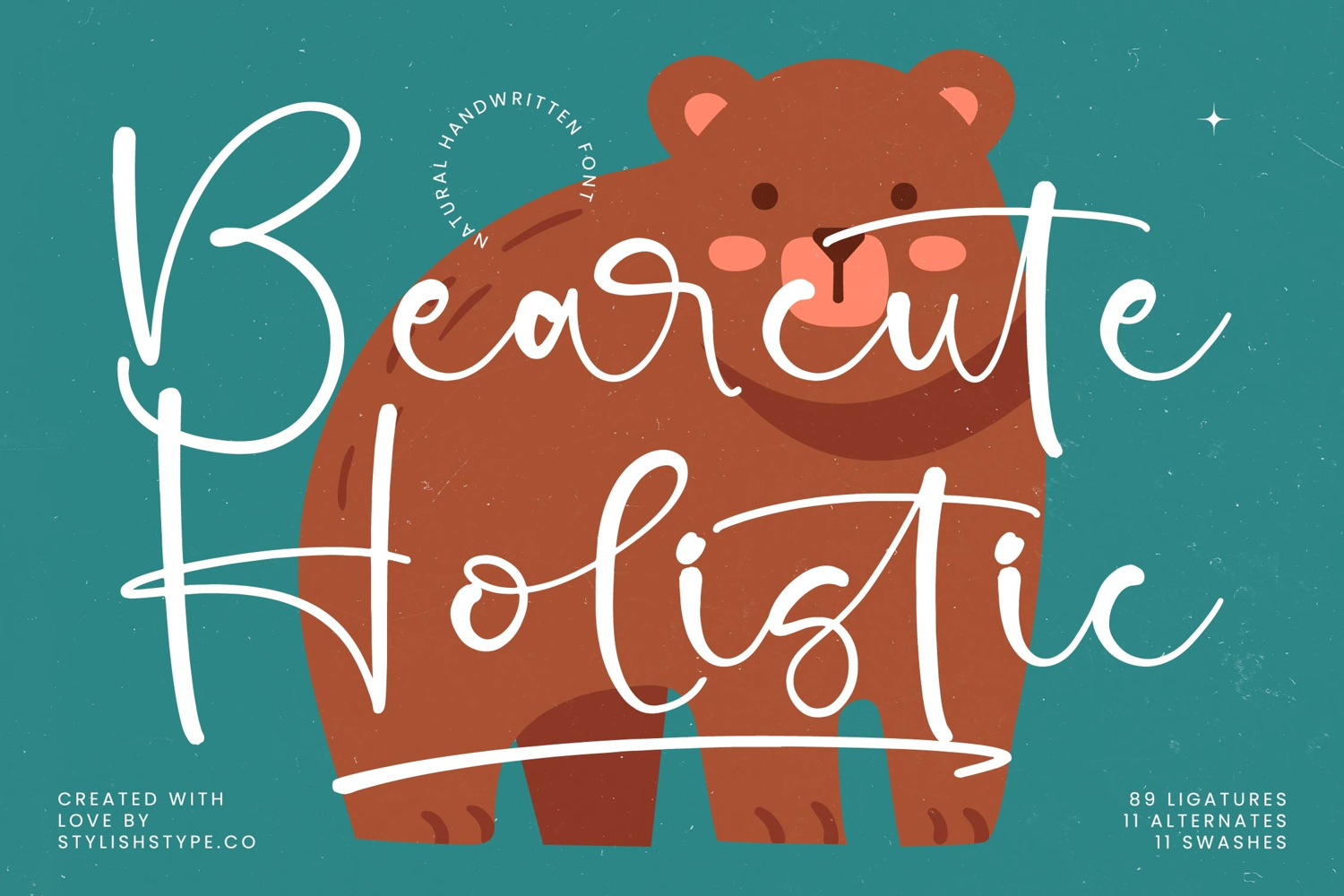
Bearcute Holistic - Natural Handwritten Font
Bearcute Holistic is a natural handwritten font that combines playful charm with modern handwritten elegance. Its casual strokes, rounded flow, and expressive ligatures make it a perfect choice for designs that want to feel friendly, warm, and approachable. With 89 ligatures, 11 alternates, and 11 swashes, this typeface gives designers creative freedom to build unique and engaging lettering compositions.
This font shines in branding. Perfect for kids’ products, organic goods, creative businesses, lifestyle brands, and boutique shops, Bearcute Holistic communicates joy and authenticity. Its handwritten personality ensures that branding projects feel approachable, memorable, and fun, making it ideal for family-friendly and creative industries.
In editorial and publishing, Bearcute Holistic adds character and charm. Children’s books, magazines, recipe books, and event flyers benefit from its playful strokes and lively rhythm. It creates editorial layouts that are both visually engaging and easy to read, appealing to audiences of all ages.
For web typography, this natural handwritten font adapts beautifully across blogs, websites, online shops, and social media posts. Its cheerful handwritten quality ensures that digital media projects feel authentic, inviting, and creative, making it especially suitable for lifestyle and playful branding.
Bearcute Holistic also thrives in advertising and marketing. From posters, promotional campaigns, product labels, and packaging, it captures attention with its friendly handwritten flow. It ensures advertising projects feel dynamic, fun, and stylish, appealing to modern, family-oriented, and youth markets.